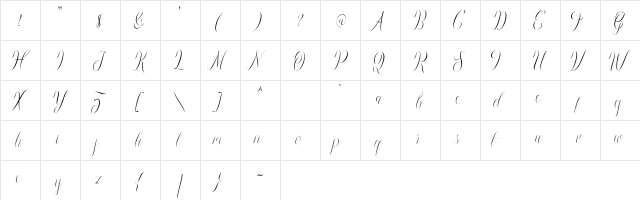
Brightday Regular
| Foundry | Kurniadi Saputra |
| Designer | Kurniadi Saputra |
Design Context for Brightday Typeface
Brightday is a composed and adaptable typeface that performs quietly and consistently across a wide range of design contexts.